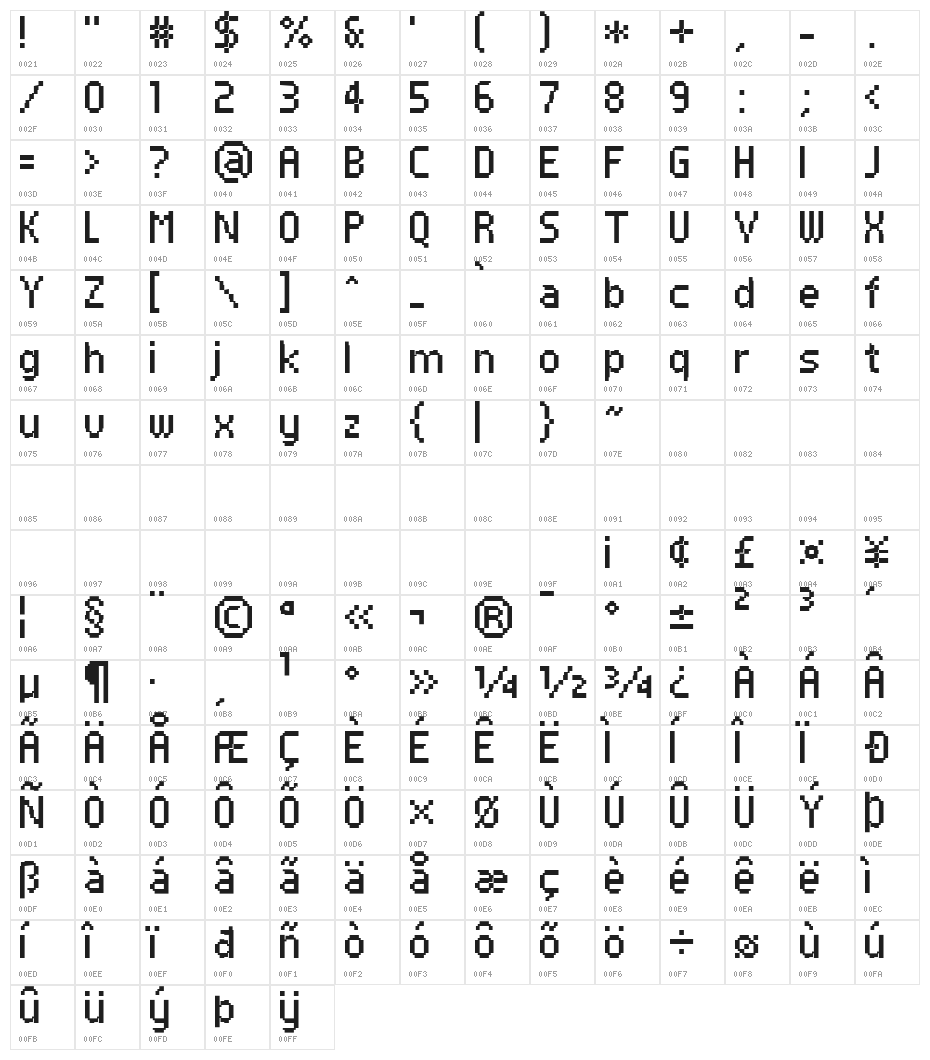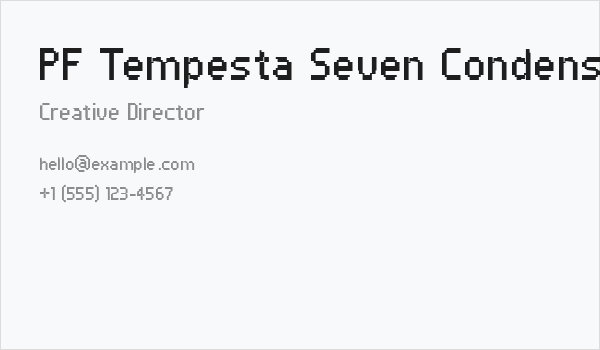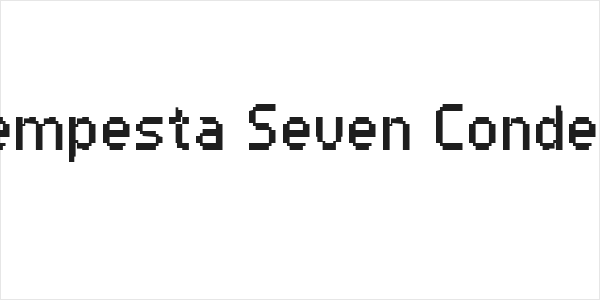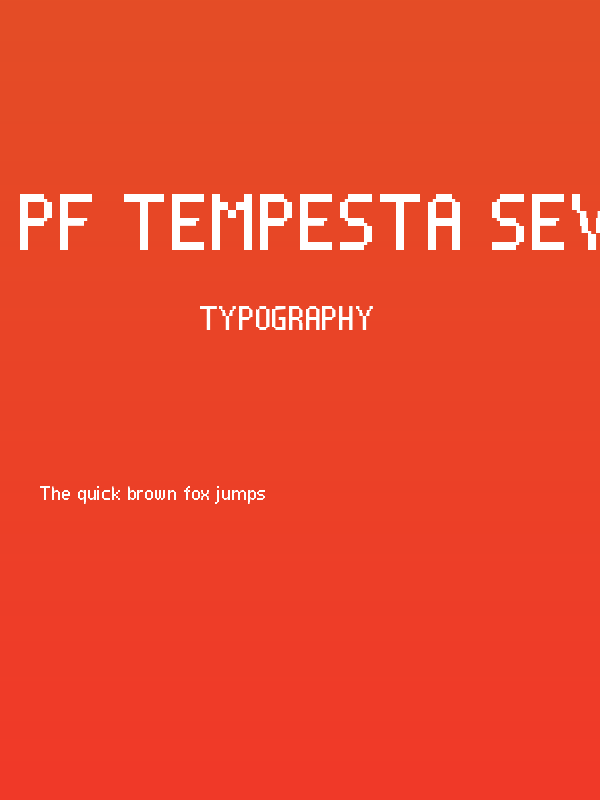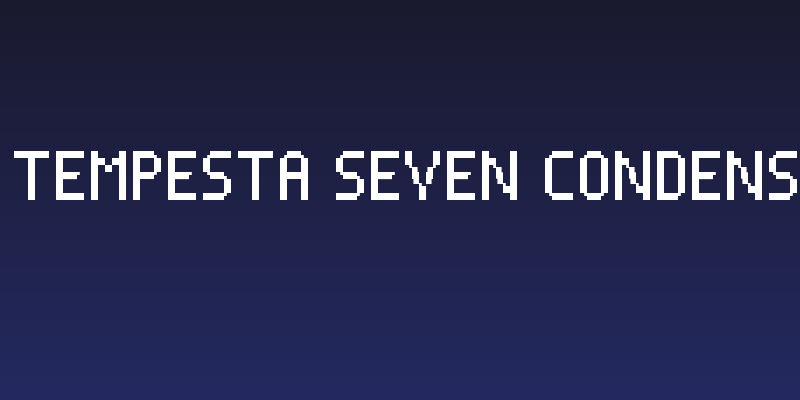
PF Tempesta Seven Condensed Font
PF Tempesta Seven Condensed Description
This font features a pixelated, blocky design reminiscent of early digital or video game typography. Each character is constructed with a uniform grid-like structure, giving it a distinctly retro and technological feel. The uppercase and lowercase letters maintain a consistent height and width, contributing to a cohesive and orderly appearance. Numbers and special characters follow the same stylistic approach, ensuring uniformity across all glyphs. The condensed nature of the font allows for efficient use of space, making it suitable for projects where space is limited but readability is crucial.
| Overall Style | Retro, Digital |
| Use Case | Headlines, Logos, Digital Art |
| Proposed Projects | Ideal for retro video game designs, digital art projects, tech-themed posters, and any creative work that requires a nostalgic digital look. |